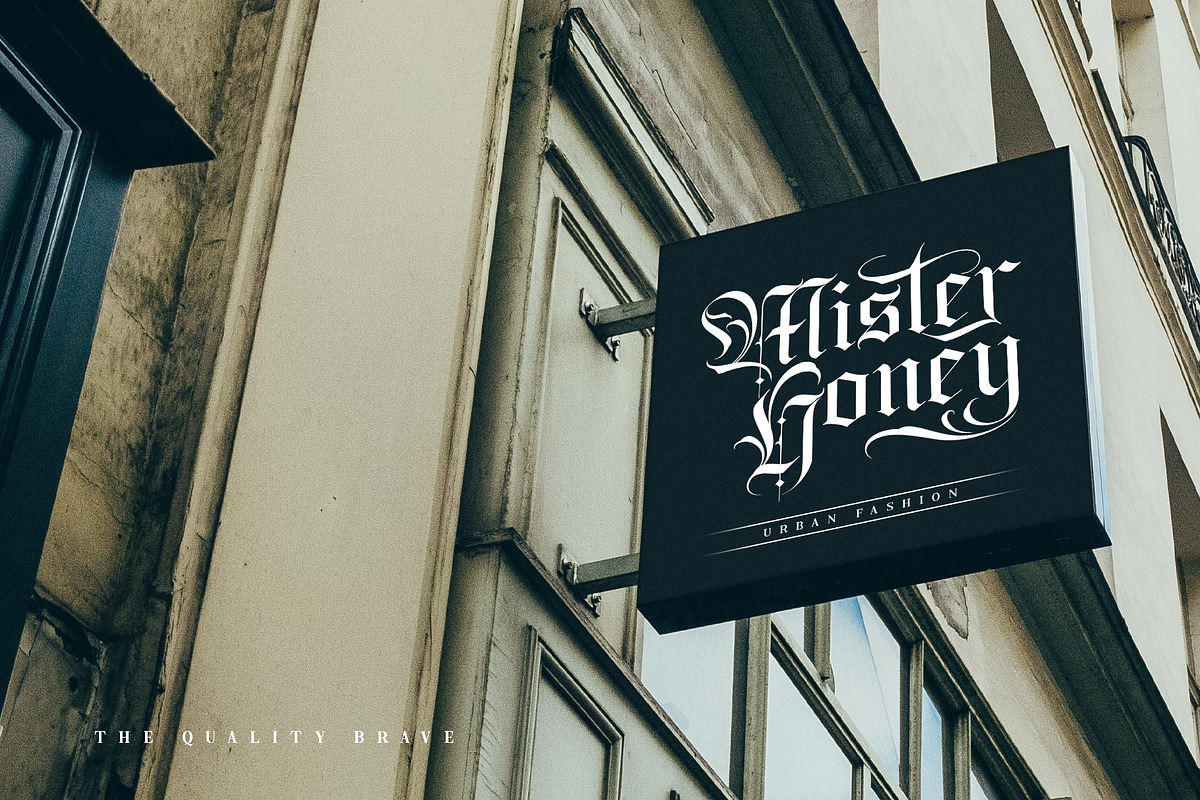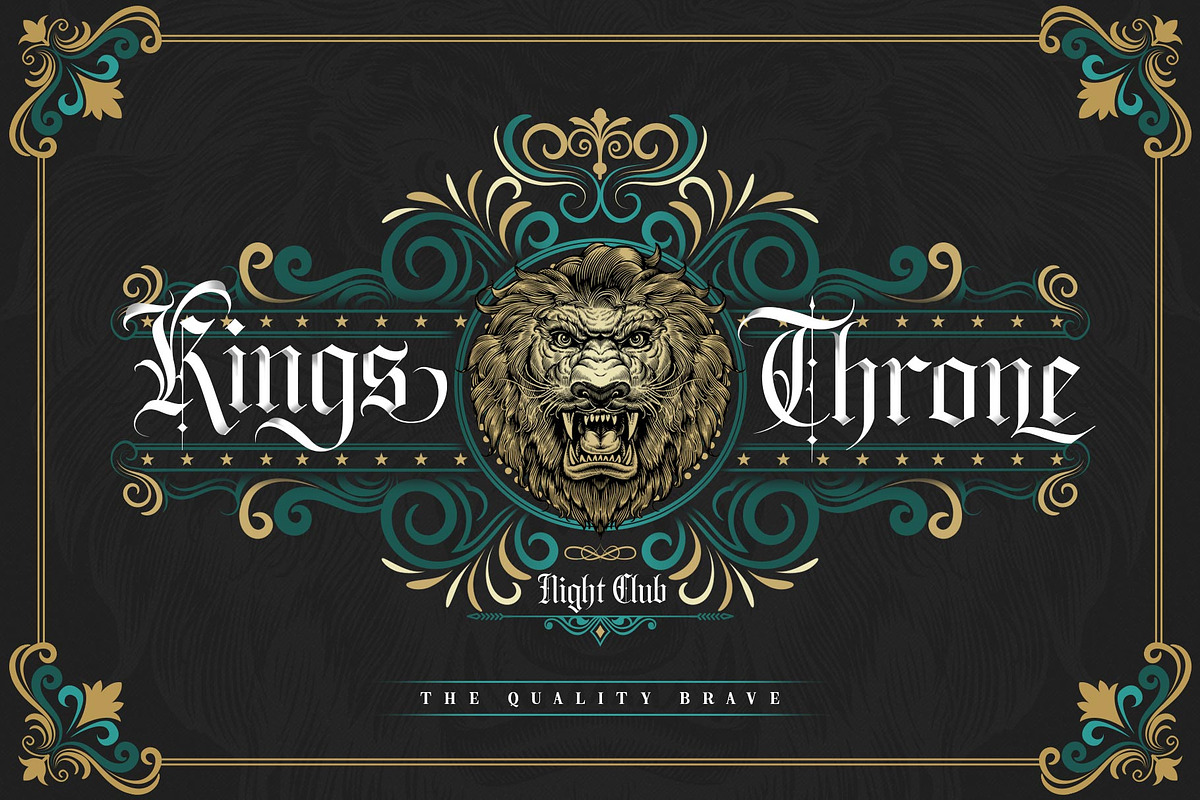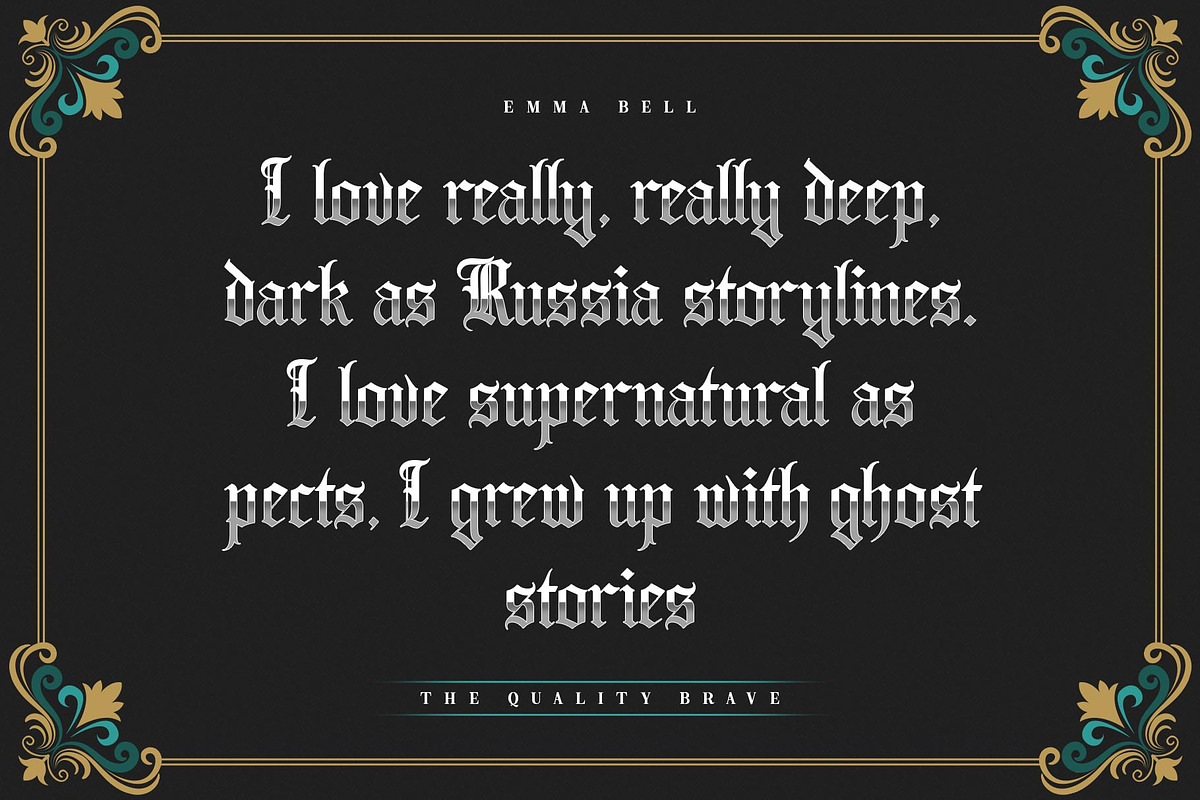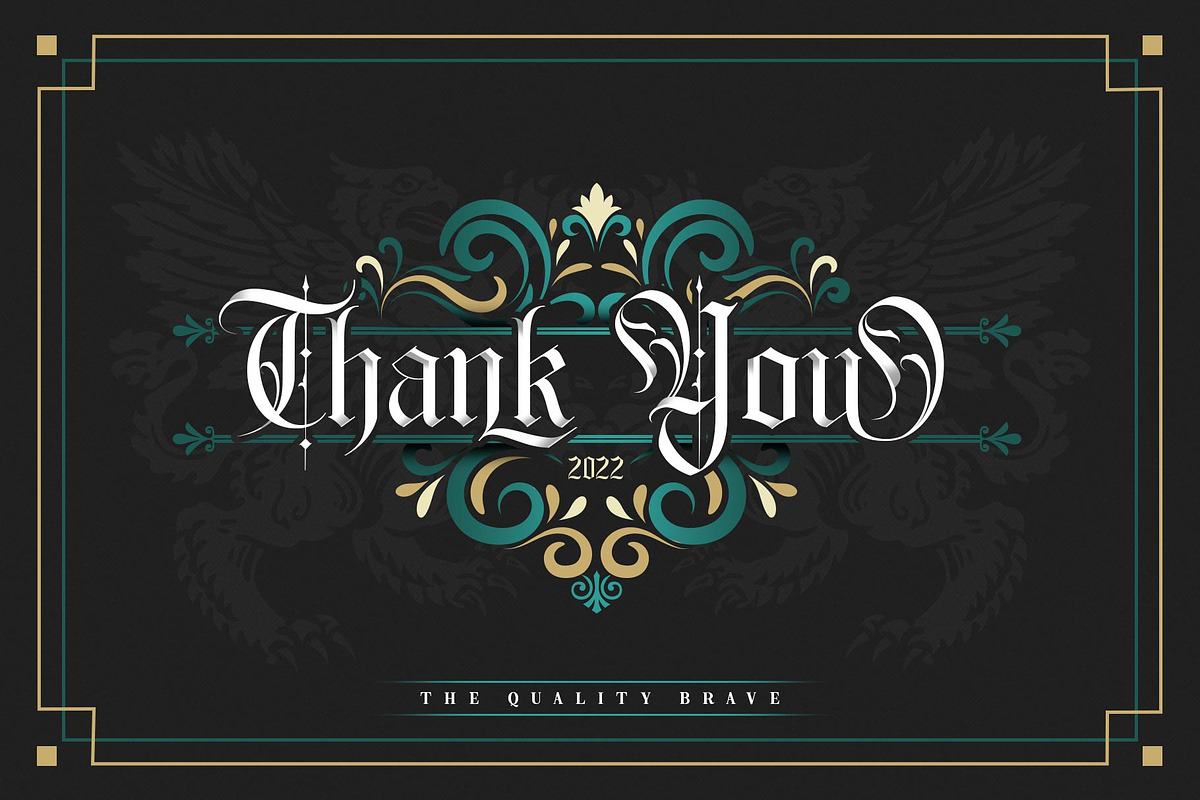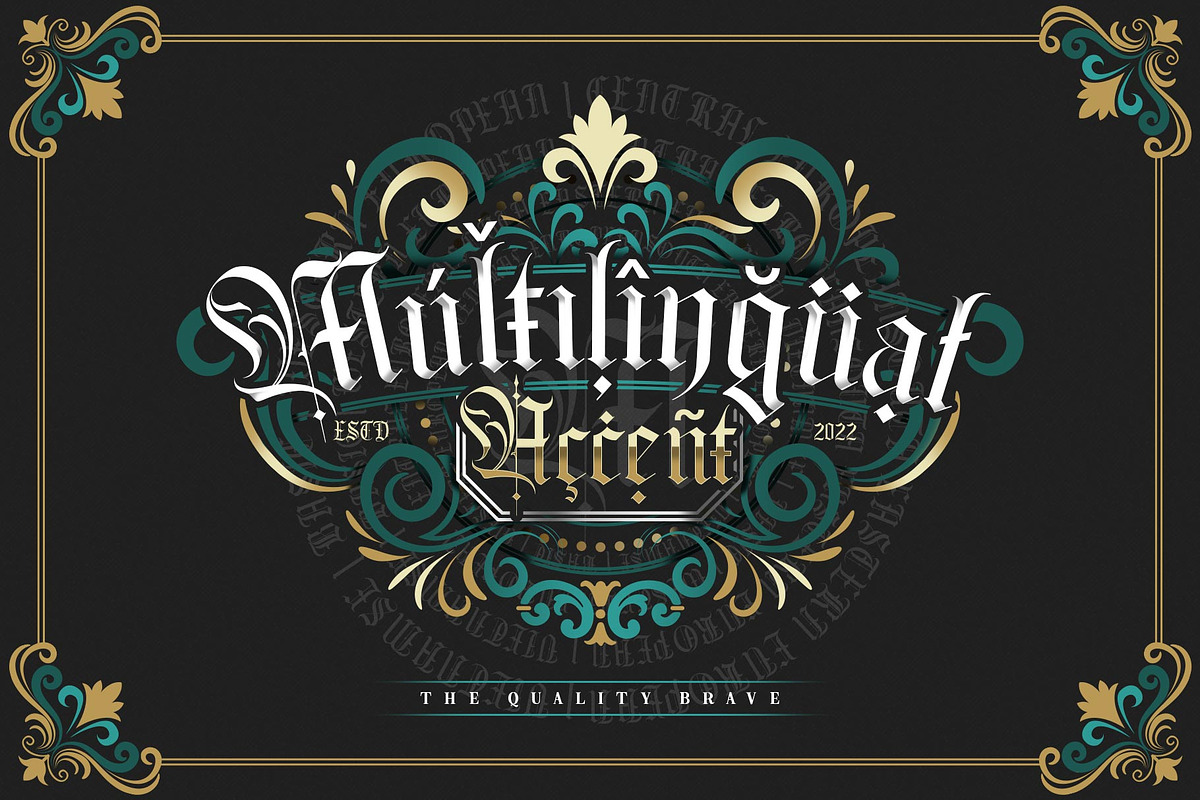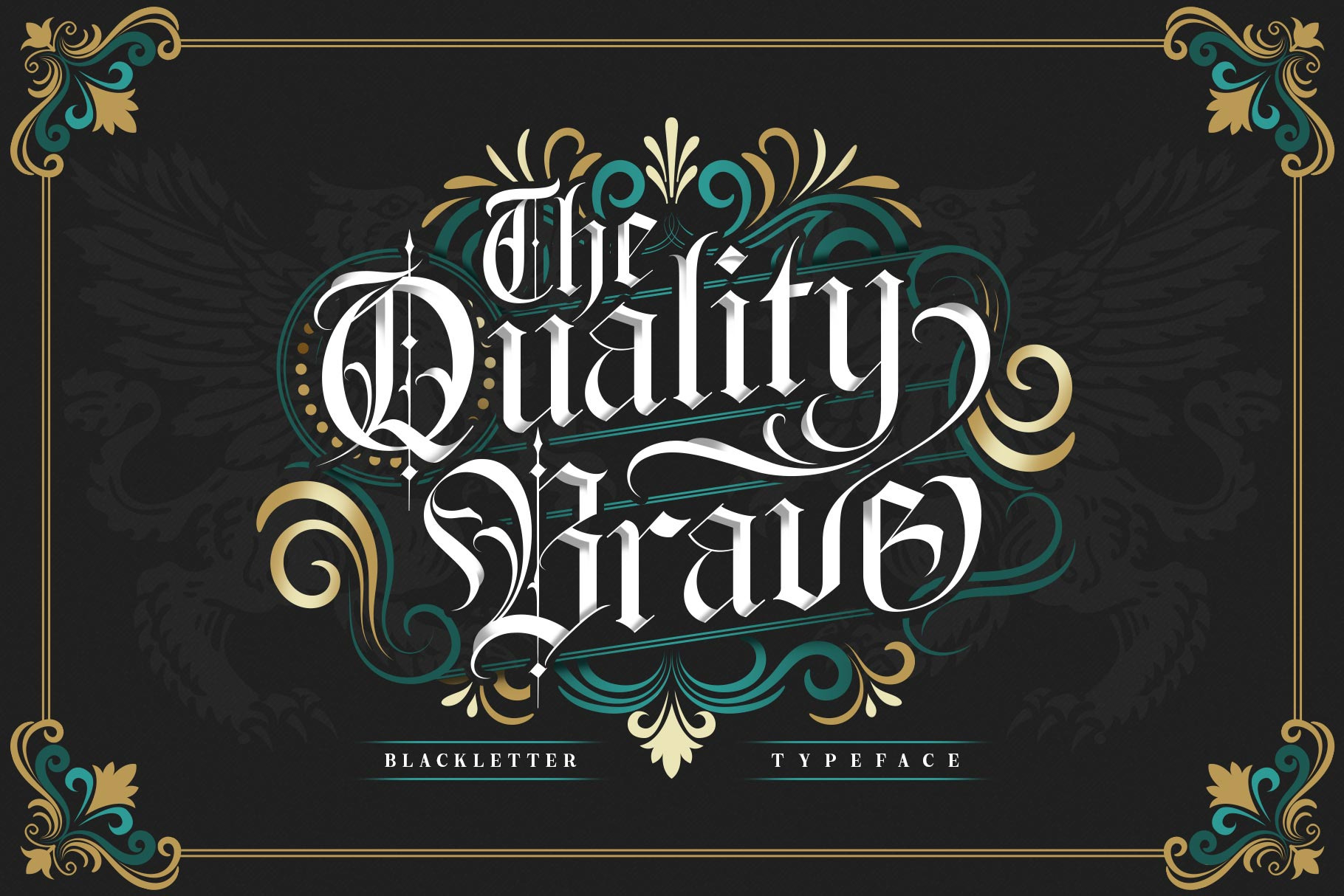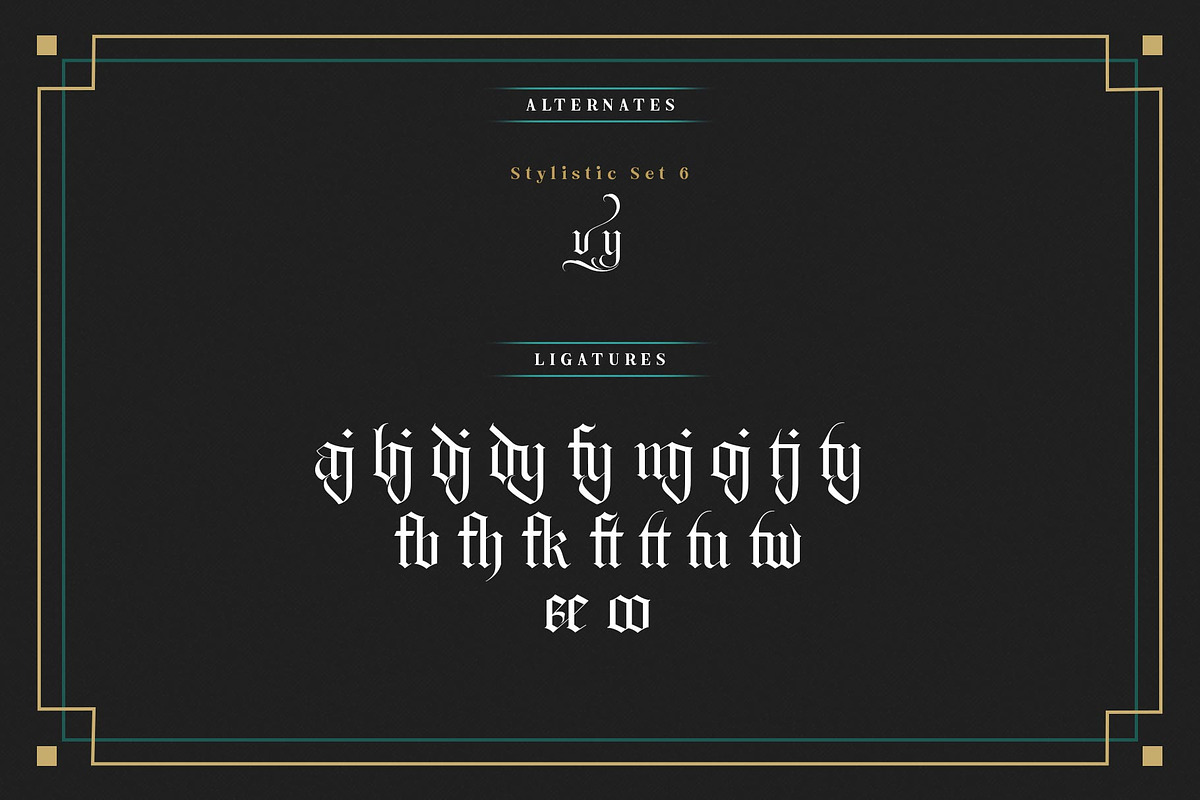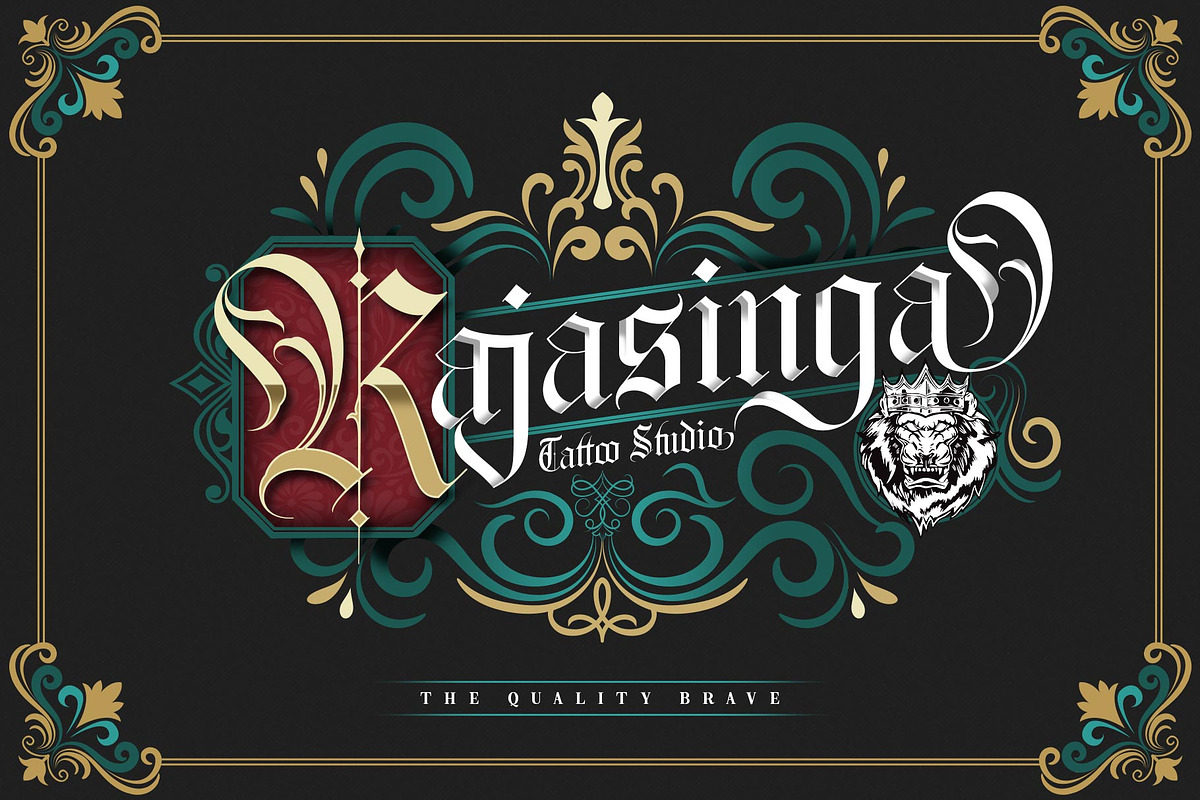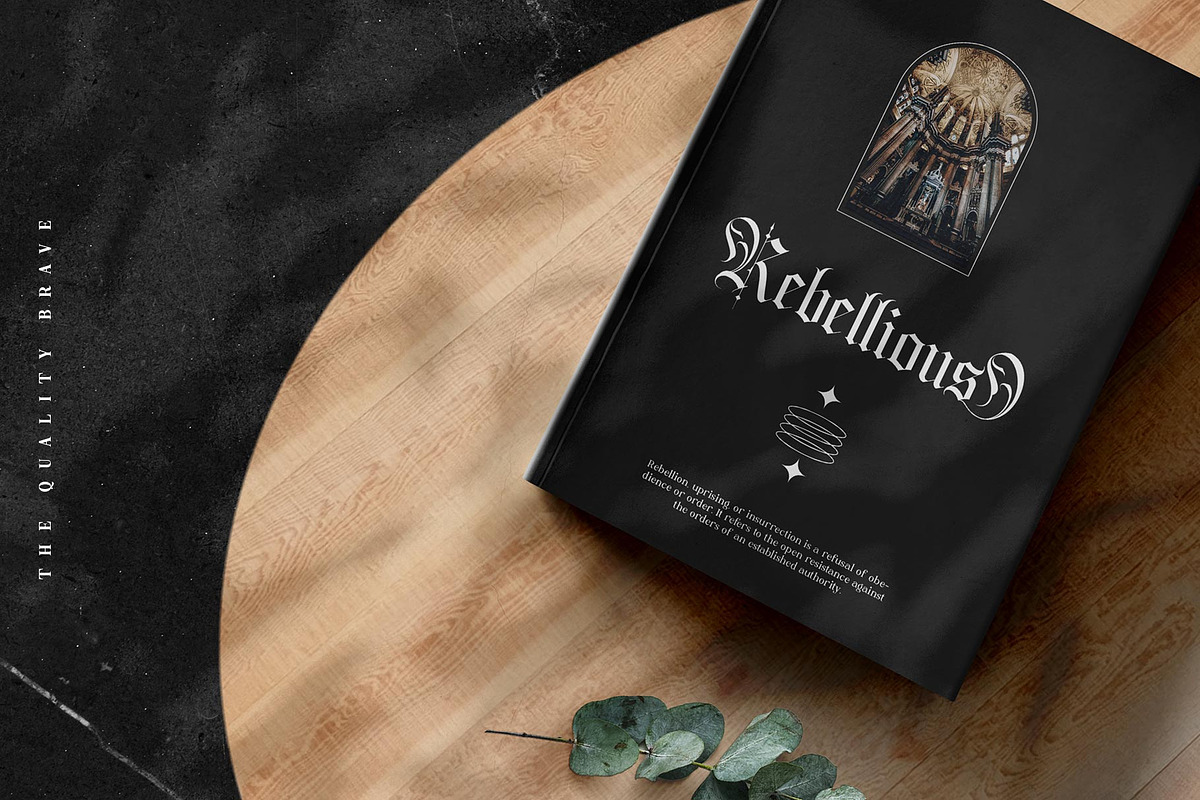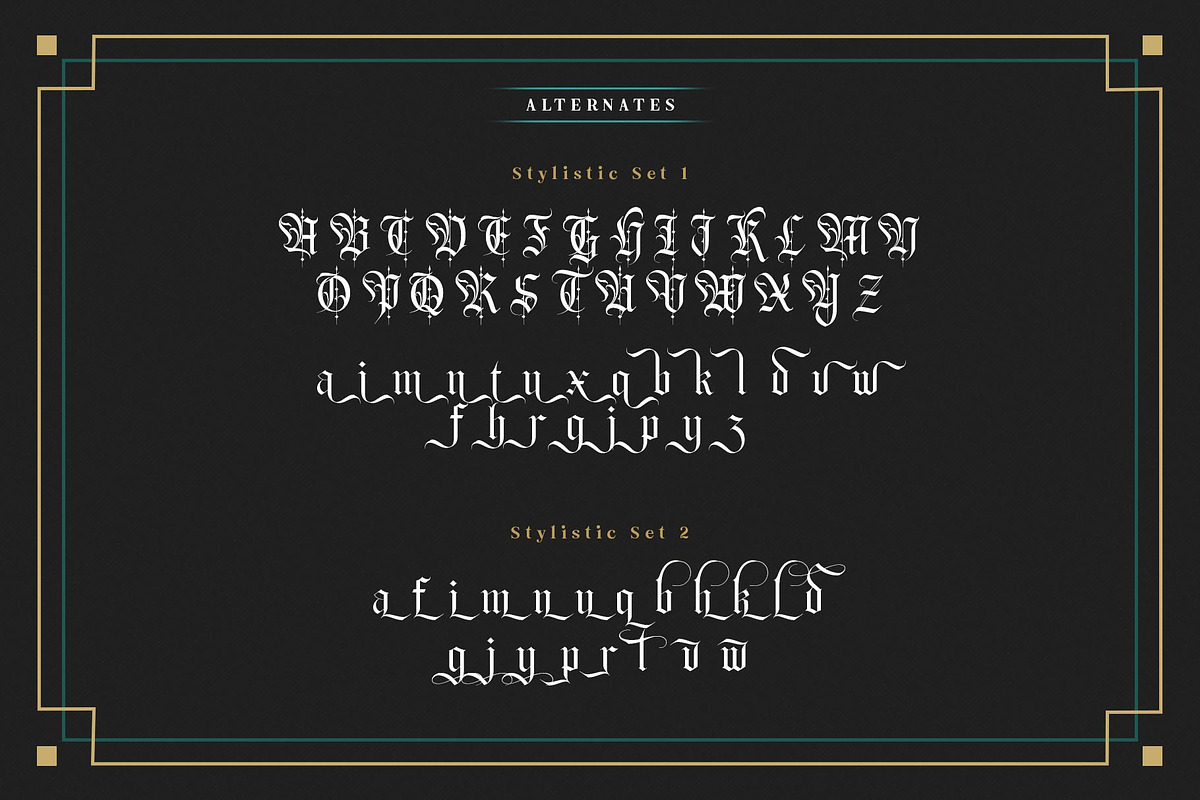
The Quality Brave Typeface
✒️The Quality Brave✒️is a font inspired by the Blackletter typeface, made with a modern impression but still looks strong and unique. Supported by alternative options such as swash, ligature and alternative characters, making The Quality Brave font very easy to create designs with strong or dark themes. In addition, The Quality Brave font is also supported with multilingual characters that can be used in several international languages.
The Quality Brave font is very suitable for use in making music album cover designs, tattoo logos, wishkey labels, packaging pomades and so on which are made with dark and strong concepts.